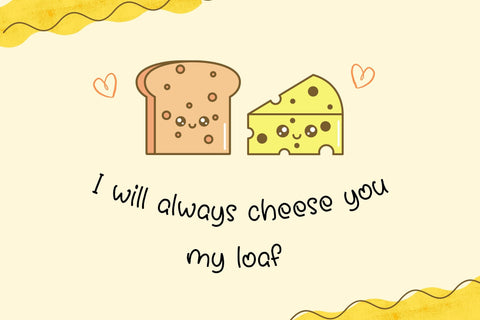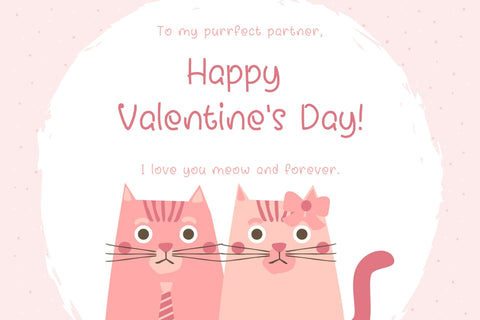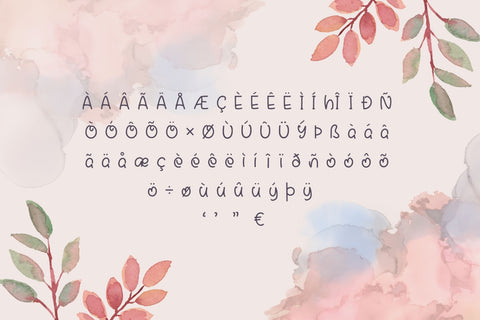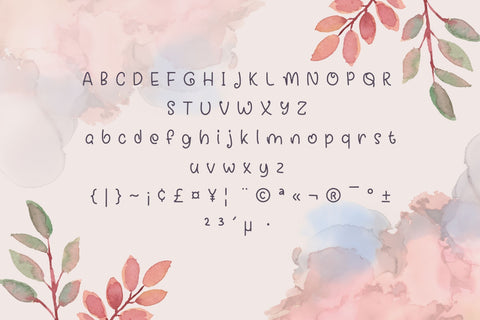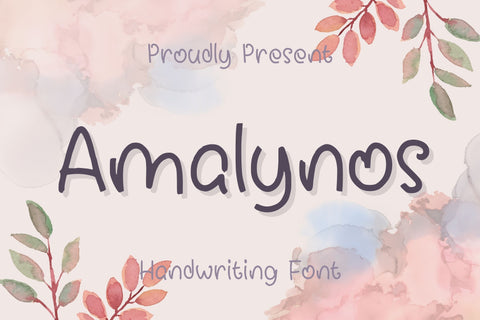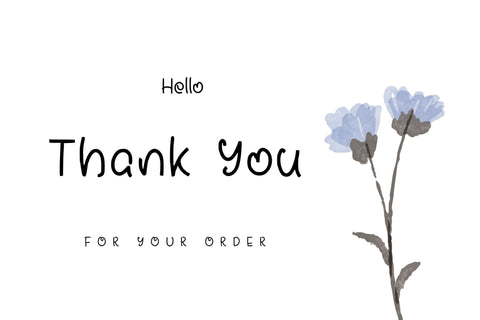
Amalynos Handwriting Font
Amalynos is a cute and simple lettered handwritten font that can be used for all chalkboard quotes or teaching material! Its authentic look will add a realistic feel to your designs.